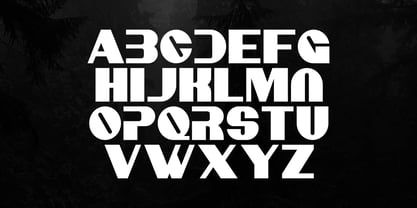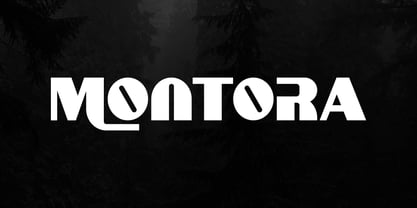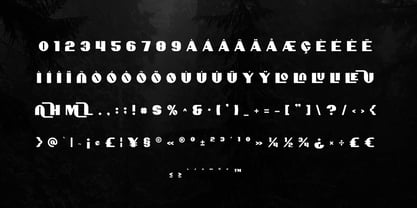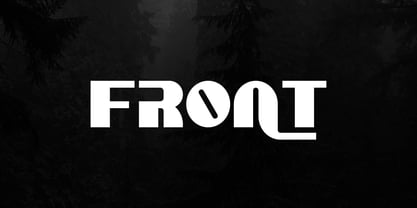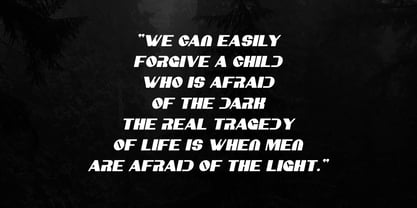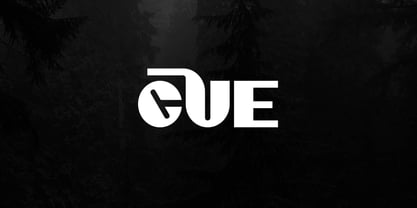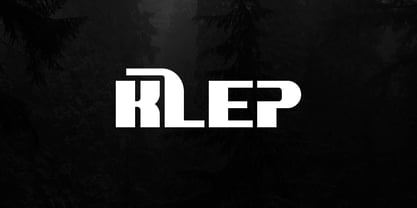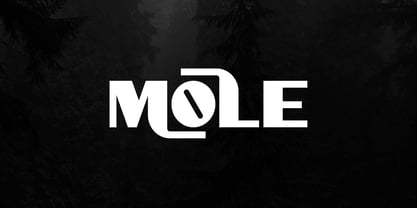
Montora
by Artiveko
The Montora Font Family was designed by Iwan Alwan and published by Artiveko. Montora contains 2 styles and family package options. More about this family
Montora is a bold display typeface crafted to deliver a strong visual impact while maintaining a clean and modern aesthetic. Featuring solid letterforms, balanced proportions, and a confident structure, Montora excels in headlines and large-scale compositions. This typeface is perfect for branding, logos, posters, packaging, advertising, and contemporary campaigns, providing a commanding presence without compromising clarity. Its sleek design ensures versatility across both print and digital media, empowering designers to create striking yet professional visuals. Montora is the ideal choice for projects that demand attention-grabbing typography with a sophisticated modern flair. Montora is not just a font — it’s bold, clean, and engineered for impact.
Designers: Iwan Alwan
Foundry: Artiveko